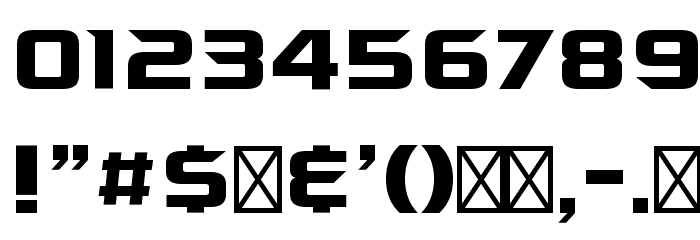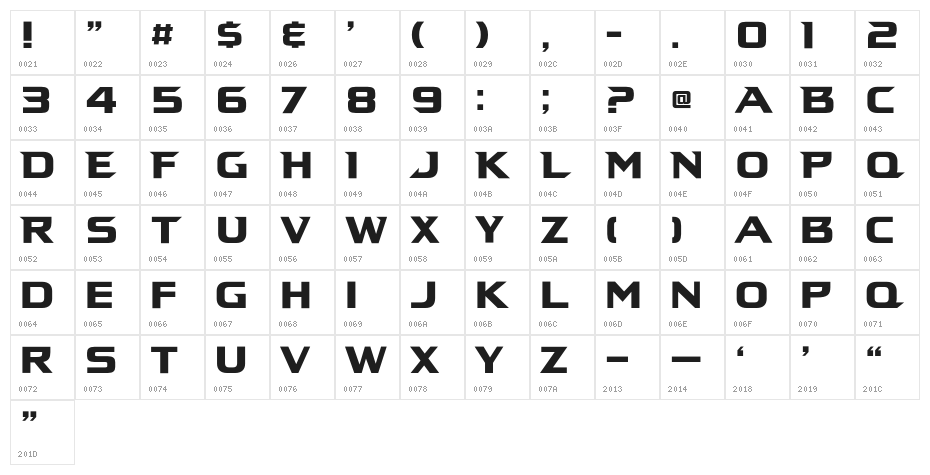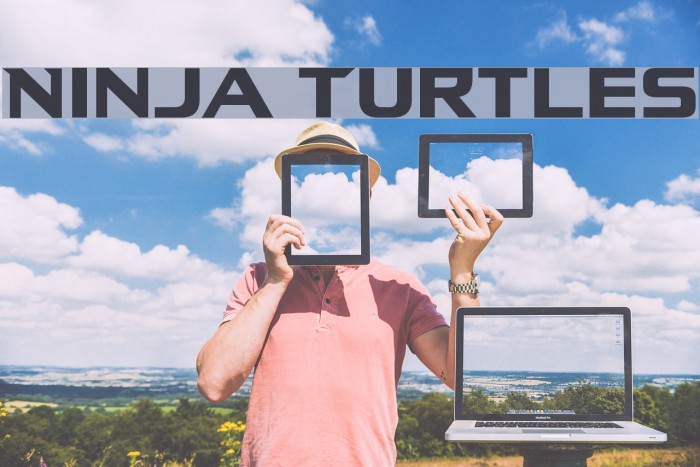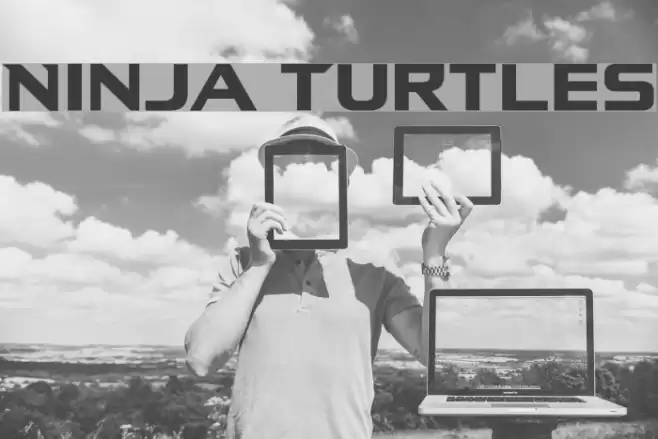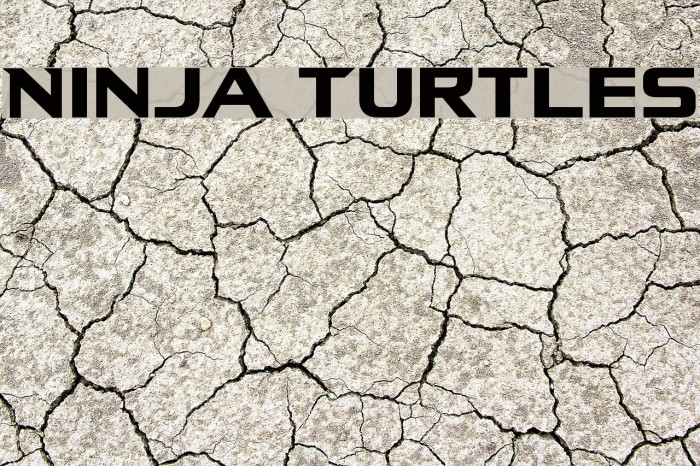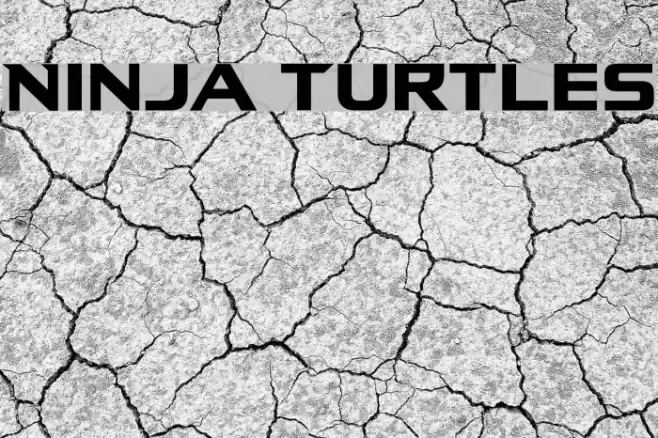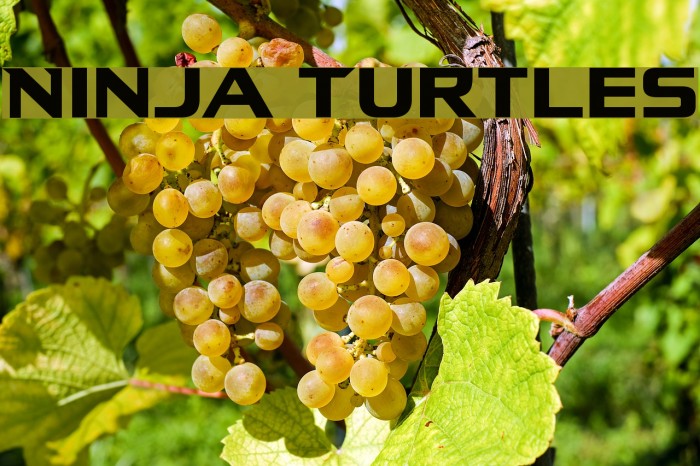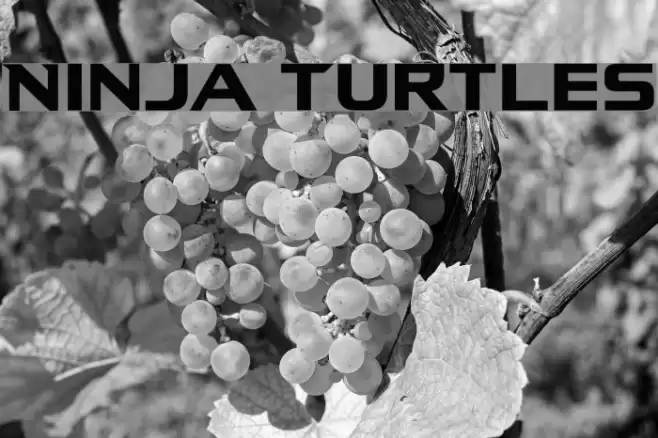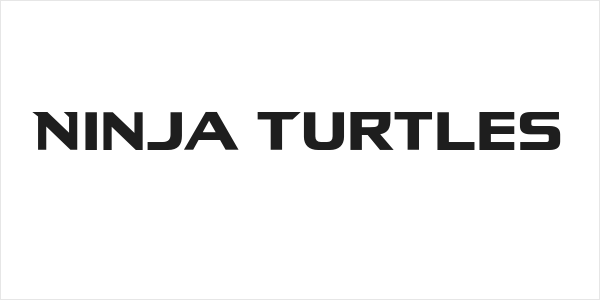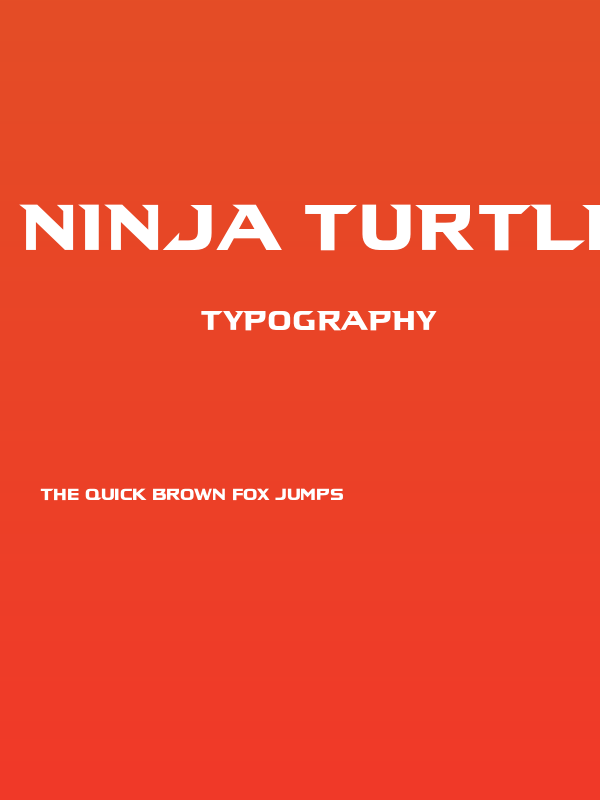
Ninja Turtles Font
Ninja Turtles Description
This font features a bold, angular design with sharp edges and a futuristic aesthetic. The uppercase letters are particularly striking, with a consistent geometric style that conveys strength and modernity. The numerals and special characters maintain this boldness, ensuring a cohesive look across all text elements. The font's design is reminiscent of action and adventure themes, making it suitable for dynamic and energetic projects. The characters are well-spaced, providing clarity and readability despite their bold nature.
| Proposed Projects | Ideal for video game titles, movie posters, action-themed branding, and sports team logos. |